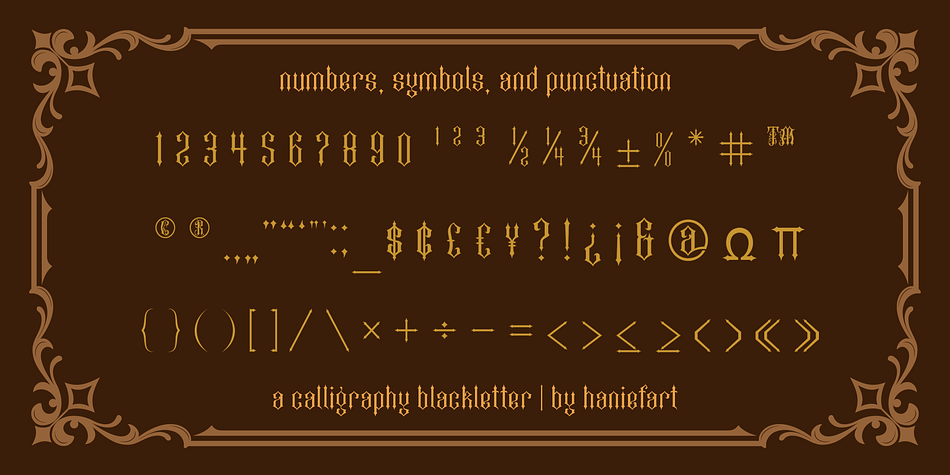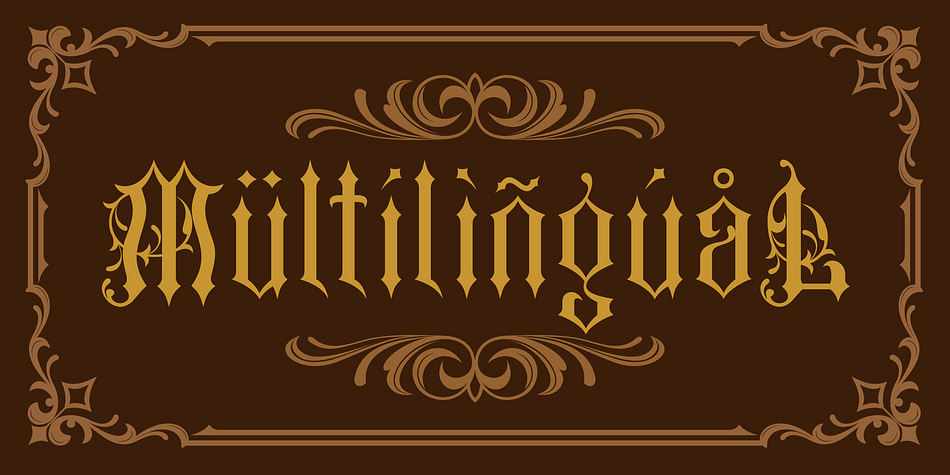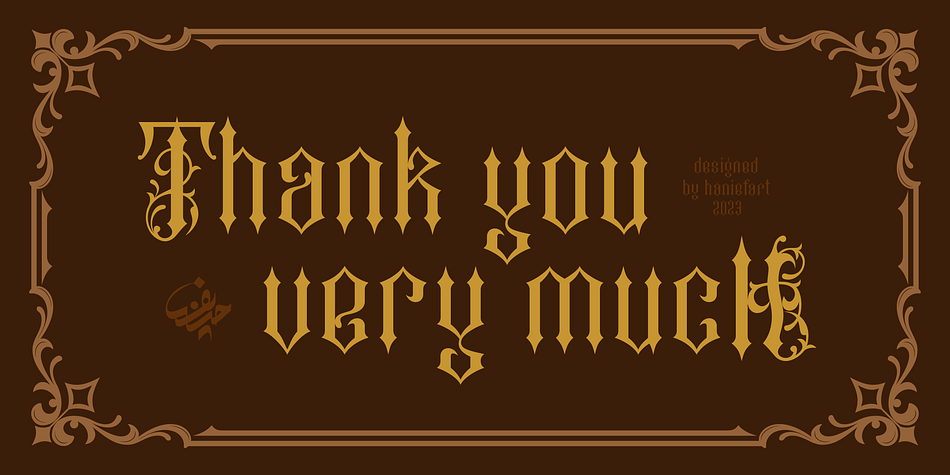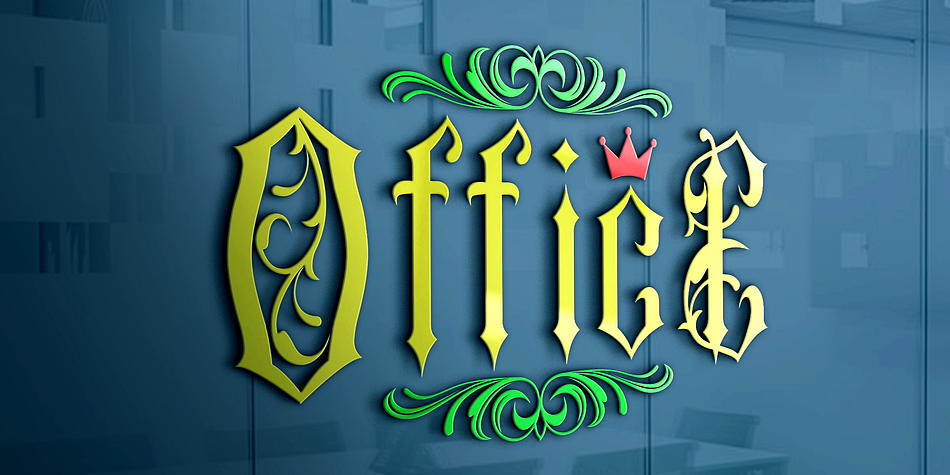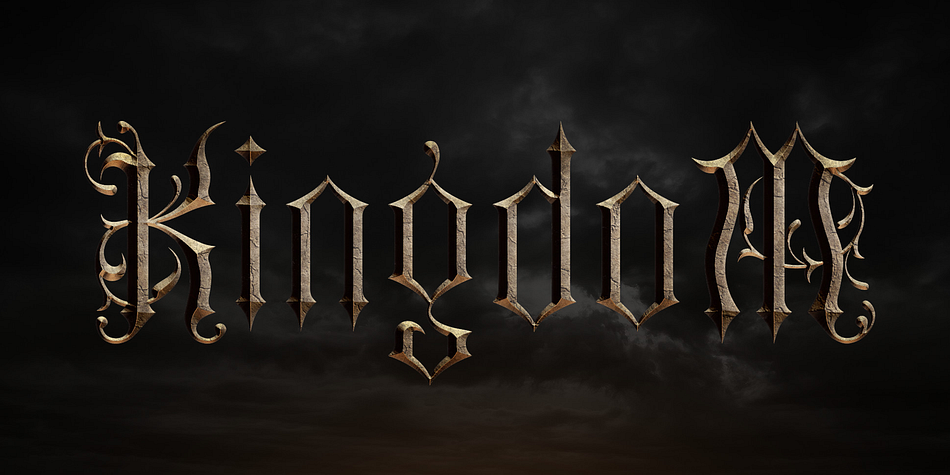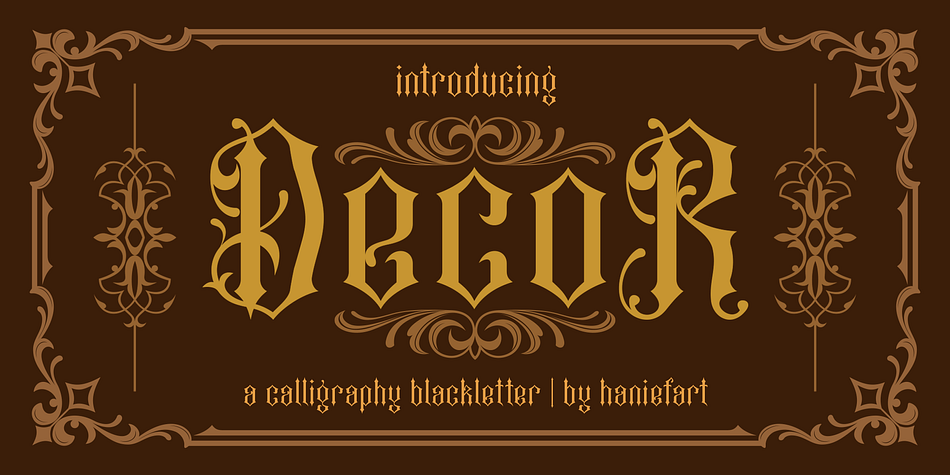
Decor
Designed by Hanif Maulazi, Decor is a blackletter font family published by Haniefart.
Decor is a classic style font made by hand, modified with various ornaments so that it looks attractive, modern and elegant, can be used for company brands, logos, film titles, drink bottles and so on.
Foundry Haniefart
Designer Hanif Maulazi